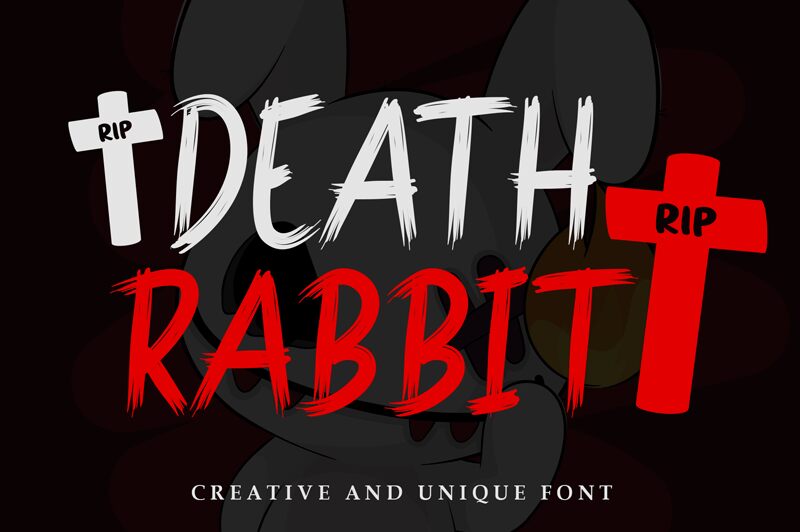
Death Rabbit
Death Rabbit font, created by Andi Moz, is a scary display font with a grungy and rebellious character. Its condensed letters balance a mix of tradition and disruption which makes the font suitable for innovative projects that need to attract immediate attention. Expressive and edgy details are what help the design convey a modern and impactful feel.
Push your limits with Death Rabbit free font within horror book titles, movie posters, advertising campaigns, social media posts - organic or paid. Its powerful aesthetic will be perfect when making announcements on flyers or party invitations. Its style also works for apparel design such as t-shirt prints where branding rarely comes to mind while purchasing new fashion items. Don’t hesitate to create business cards or add value to websites and apps too!